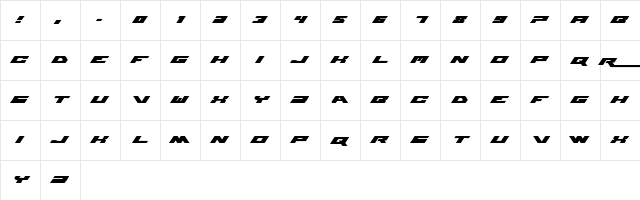
WWE Raw Regular Font Preview
WWE Raw Regular
Design Context for WWE Raw Typeface
WWE Raw is a composed and adaptable typeface that performs quietly and consistently across a wide range of design contexts.
Pro Tip: Use WWE Raw in both headline and body roles to test its range before committing to a single application.